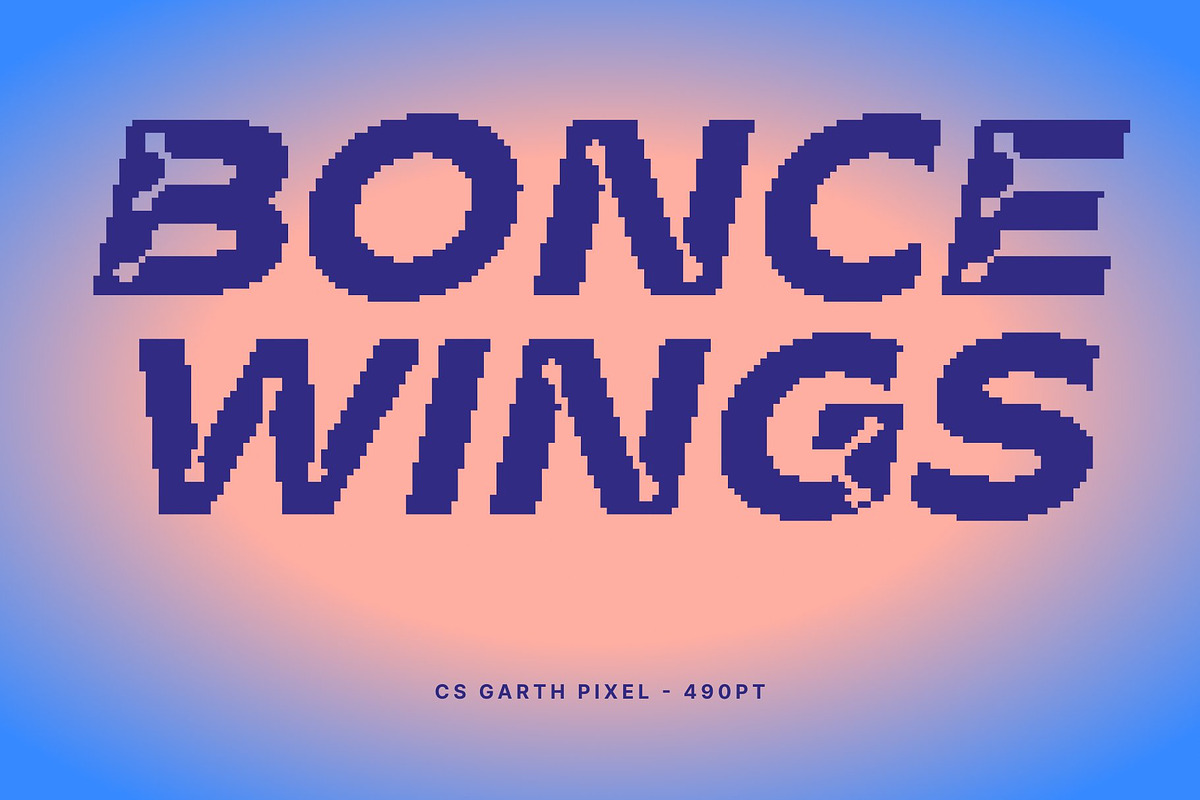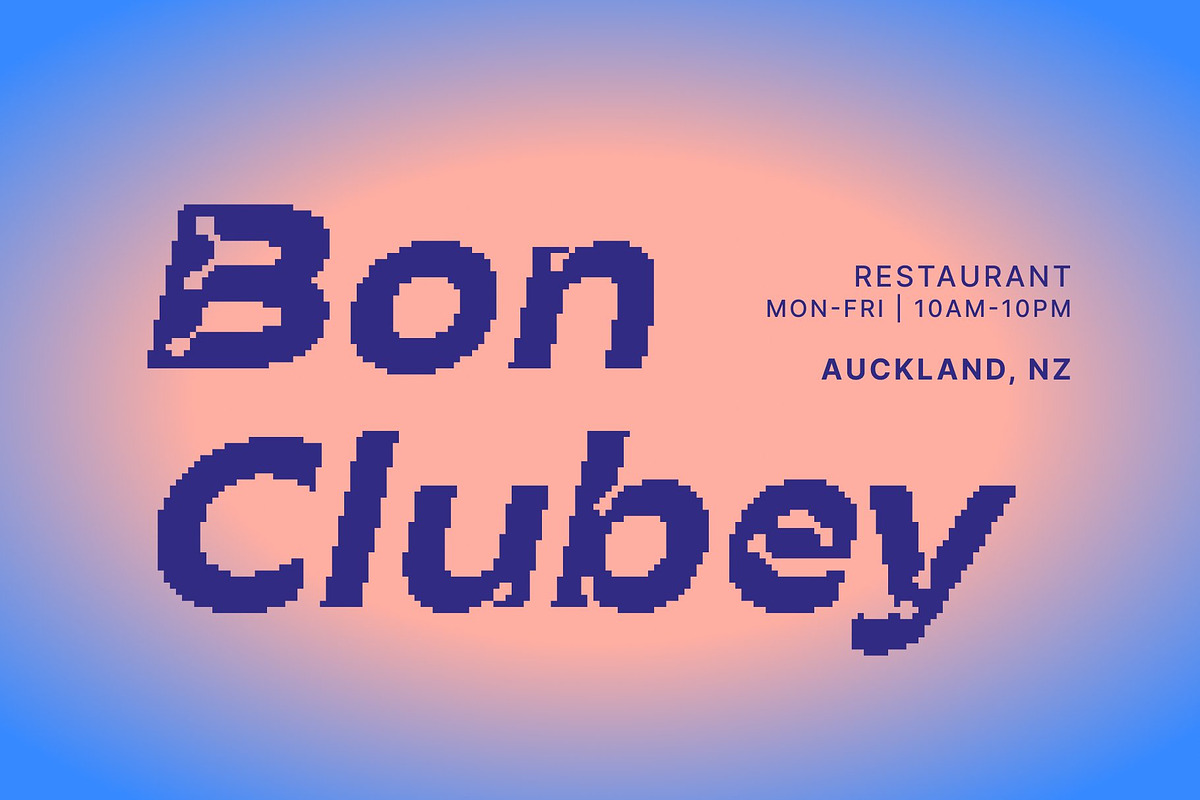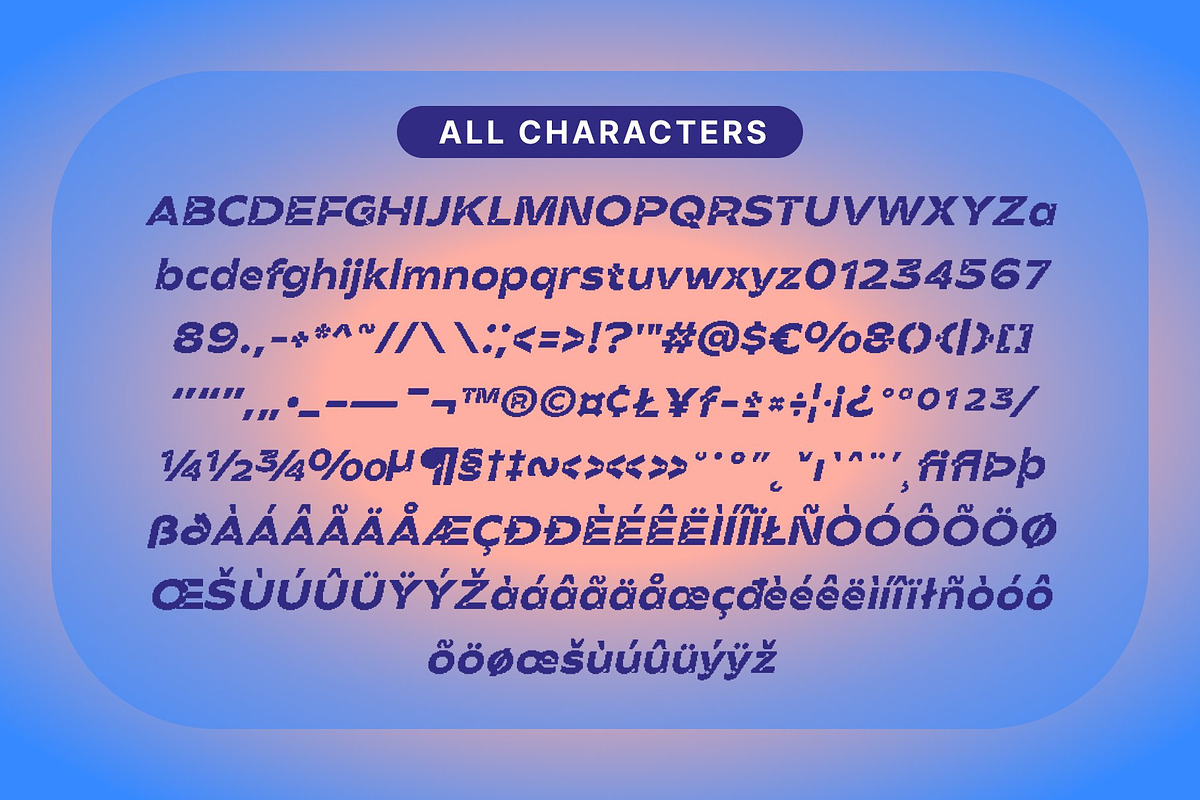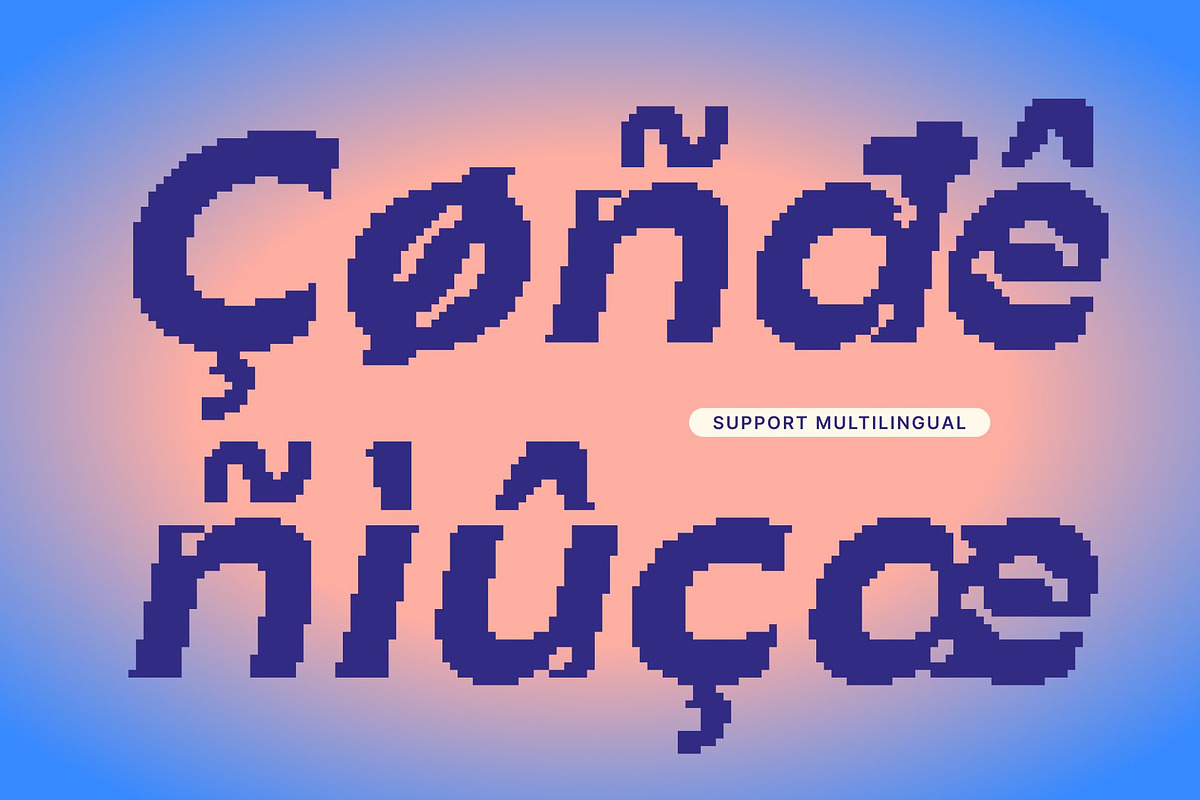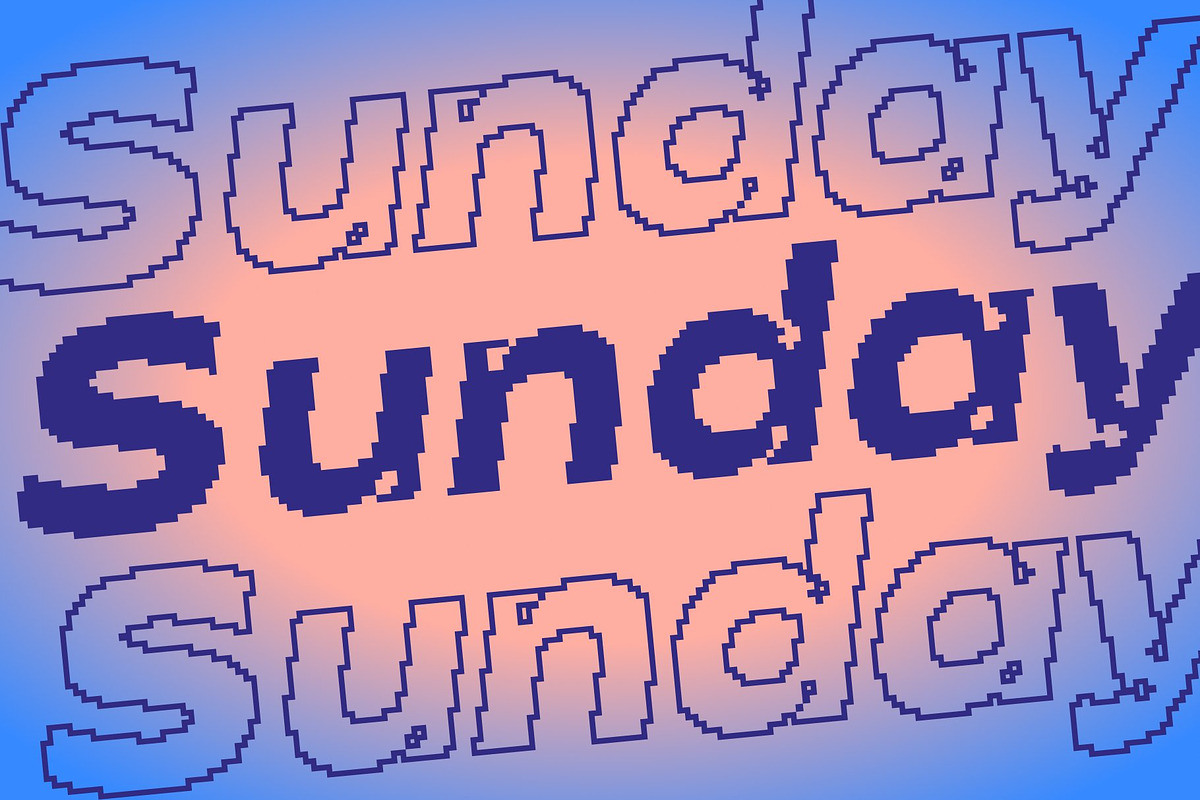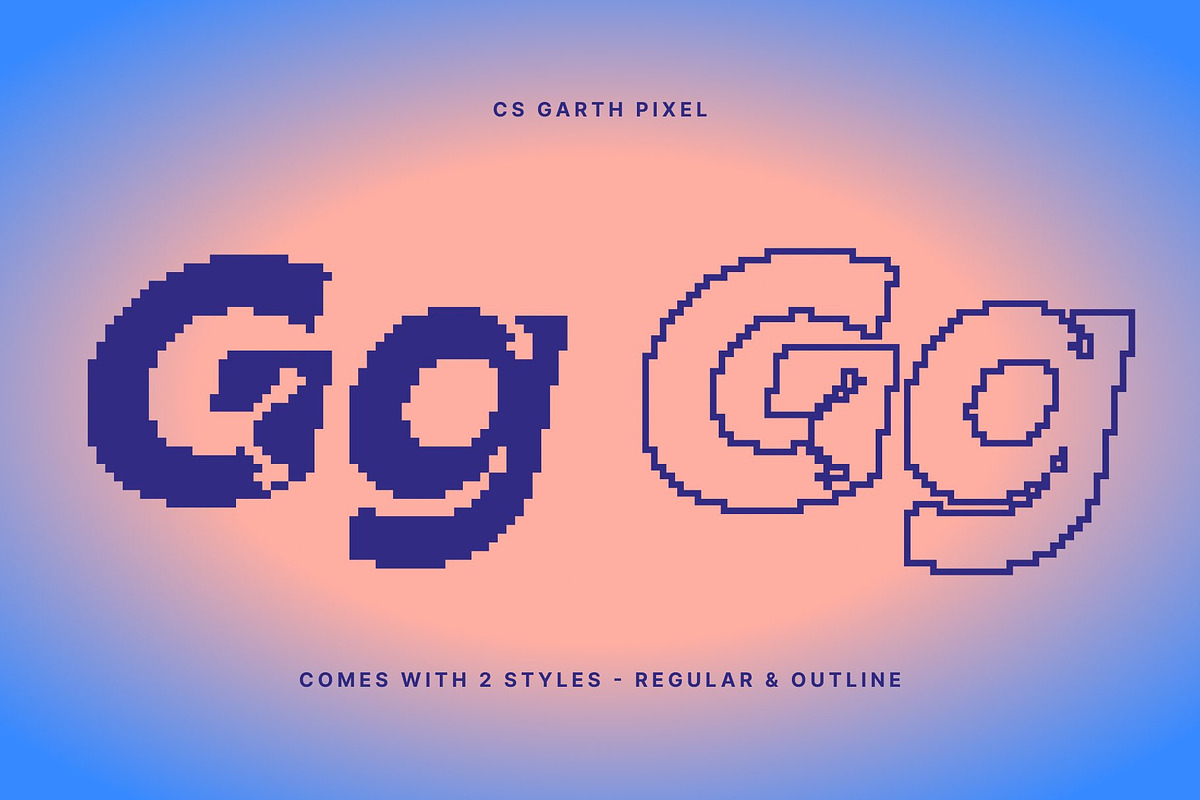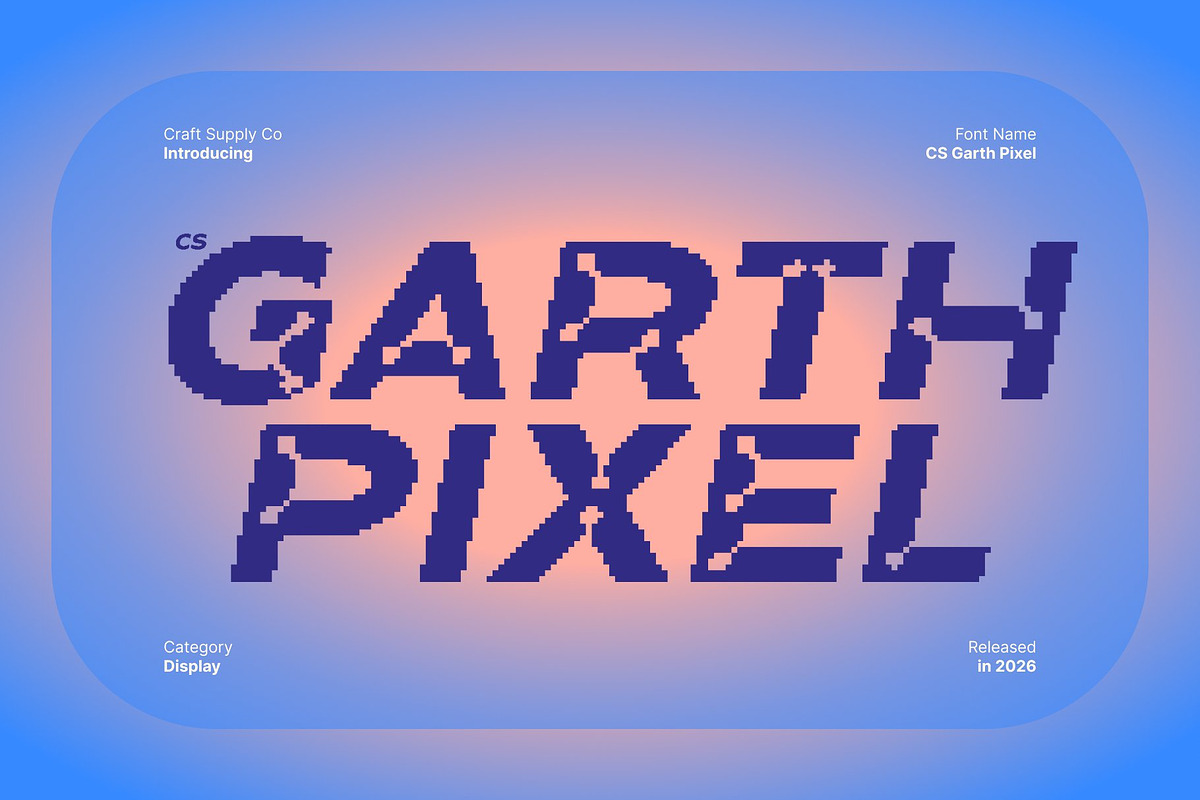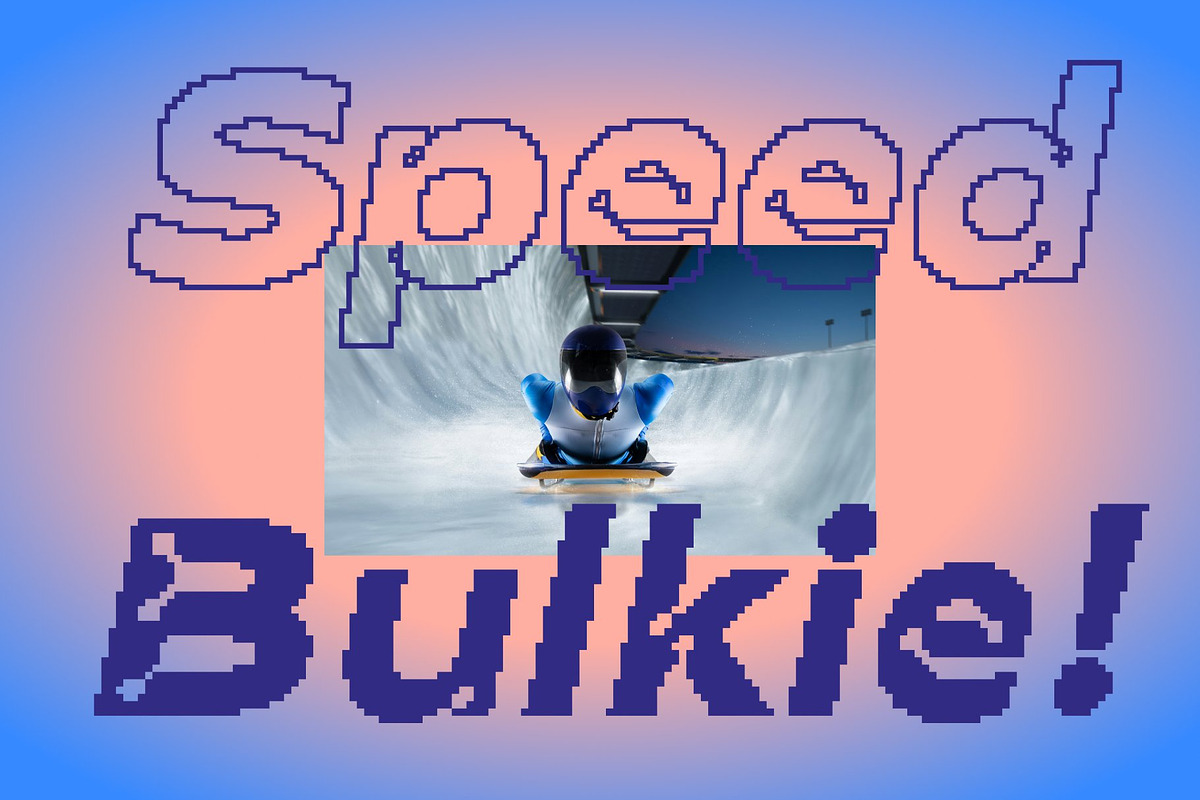
CS Garth Pixel
CS Garth Pixel – Inktrap Font: Where Modernity Meets Dimension
Modern Sans Serif with Pixel Precision This is a modern sans serif font that combines clean geometry with distinctive inktrap details and subtle pixel-inspired precision. Designed for contemporary digital-forward projects, this typeface delivers a sharp, confident appearance while introducing visual depth that elevates standard modern typography.
Clean Structure with a Modern Edge At its core, this font features a tidy, minimalist sans serif construction. Its balanced proportions and crisp strokes create a sleek and professional look, making the font feel current, efficient, and visually controlled. This clarity allows it to perform exceptionally well across digital interfaces and print layouts.
Inktrap Details That Add Dimension The inktrap elements are thoughtfully integrated to enhance corners and stroke intersections. These details not only add character and dimension but also improve clarity at smaller sizes, giving the font a functional advantage alongside its aesthetic appeal.
Ideal for Contemporary Visual Systems This font is well suited for branding, UI/UX design, technology products, editorial layouts, and modern advertising. Its combination of cleanliness and character makes it adaptable to both corporate and creative contexts.
- CS Garth Pixel Regular
- CS Garth Pixel Outline